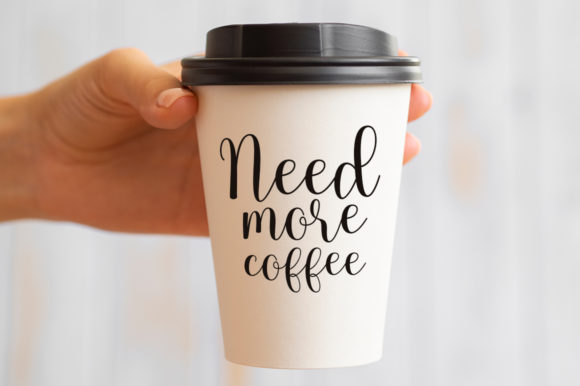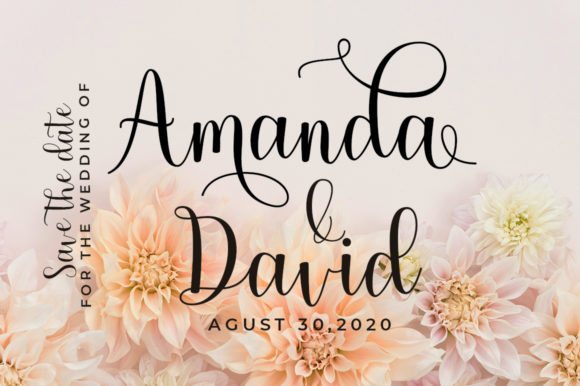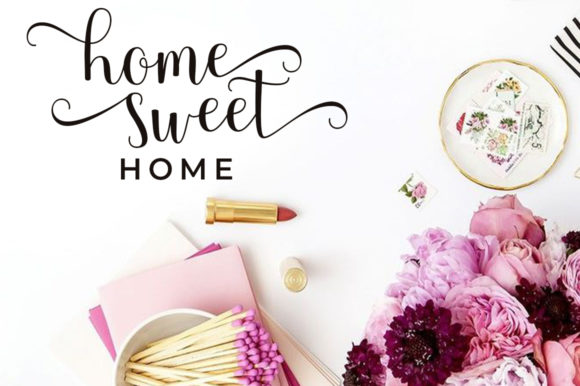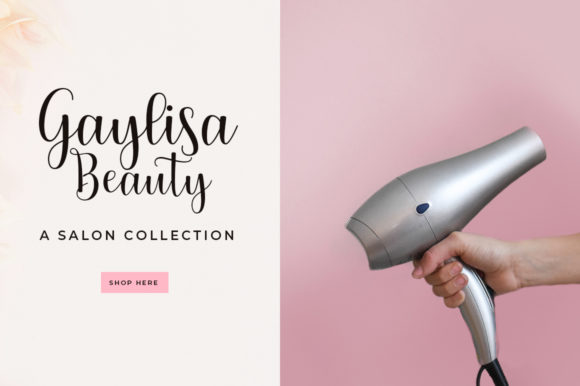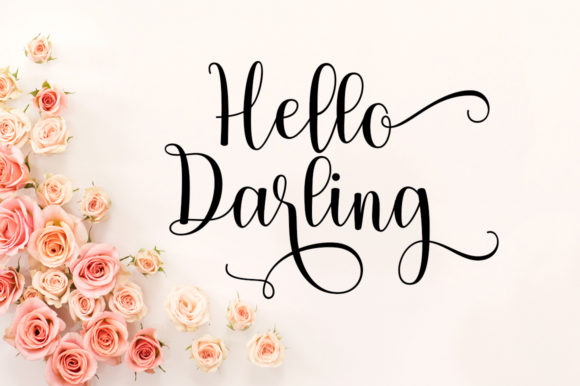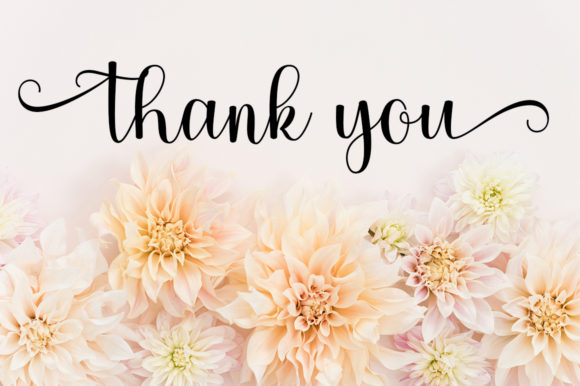
Arabela Font: The Modern, Fun Handwritten Font for All Your Creative Projects
Are you a designer, crafter, or creative looking for a font that adds a touch of personality to your projects? Look no further than Arabela Font! This modern, fun handwritten font is perfect for a wide range of applications, from web design to print, moving images, and more. In this article, we’ll take a closer look at Arabela Font, its features, and how you can use it to elevate your creative projects.
What is Arabela Font?
Arabela Font is a modern, fun handwritten font designed to add a touch of whimsy and personality to your projects. With its clean lines, flowing curves, and unique character, Arabela Font is perfect for creating eye-catching designs that stand out from the crowd. Whether you’re designing a website, creating a logo, or crafting a brochure, Arabela Font is sure to make a lasting impression.
Key Features of Arabela Font
Arabela Font boasts a range of features that make it an ideal choice for designers and crafters. Some of its key features include:
- Modern and Fun Design: Arabela Font has a fresh, modern design that’s perfect for creating eye-catching designs that appeal to a wide range of audiences.
- Handwritten Style: With its flowing curves and unique character, Arabela Font has a warm, handwritten feel that’s perfect for adding a personal touch to your projects.
- Versatile: Arabela Font is perfect for a wide range of applications, from web design to print, moving images, and more.
- Easy to Read: Despite its unique design, Arabela Font is easy to read, making it perfect for body text and headlines.
How to Use Arabela Font in Your Projects
Arabela Font is a versatile font that can be used in a wide range of projects. Here are some ideas to get you started:
- Web Design: Use Arabela Font as a heading font or body text font to add a touch of personality to your website.
- Print Design: Arabela Font is perfect for print design projects, such as brochures, flyers, and business cards.
- Moving Images: Use Arabela Font in your video projects, such as explainer videos, animations, and more.
- Crafting: Arabela Font can be used in a variety of crafting projects, such as card making, scrapbooking, and more.
Tips for Getting the Most Out of Arabela Font
Here are some tips for getting the most out of Arabela Font:
- Experiment with Different Sizes: Arabela Font looks great in a variety of sizes, from small body text to large headlines.
- Pair with Other Fonts: Arabela Font pairs well with a range of other fonts, so don’t be afraid to experiment with different combinations.
- Use in Combination with Images: Arabela Font looks great when used in combination with images, so consider using it to add text to your photos and illustrations.
In conclusion, Arabela Font is a modern, fun handwritten font that’s perfect for designers, crafters, and creatives looking to add a touch of personality to their projects. With its clean lines, flowing curves, and unique character, Arabela Font is sure to make a lasting impression. Whether you’re designing a website, creating a logo, or crafting a brochure, Arabela Font is a great choice. So why not give it a try and see how it can elevate your creative projects?
Whether it’s for web, print, moving images or anything else – Arabela will look spectacular. So go ahead, get creative, and make Arabela Font a part of your design toolkit!